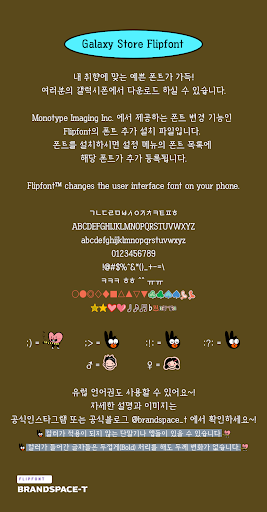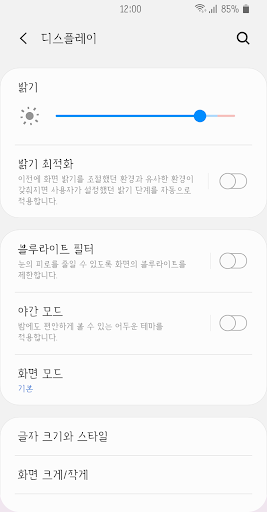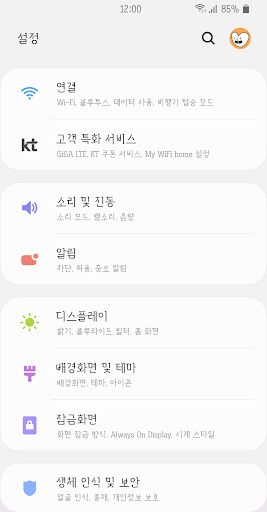
BSTKissLove
This typeface expresses my love, my friend, and my pet's nickname and love with the concept of solving the loneliness of autumn in a strange and fun way. It is BSTKissLove, which is full of lovely expressions with sensuous serifs and curves, not hard but cool.
+ ;) Pretty smile, the point ring of the brand space-tea! A heart that makes you happy even with fallen leaves!
+ ;> "Kiss on the spot" Dingbet!
+ :!: "Whistle Kiss". Dingbet!
+ :?: "Surprised Kiss". Dingbet!
+ ♂ (boy) ♀ (girl) There is!
+ The colored characters do not change their thickness even if they are thickened.